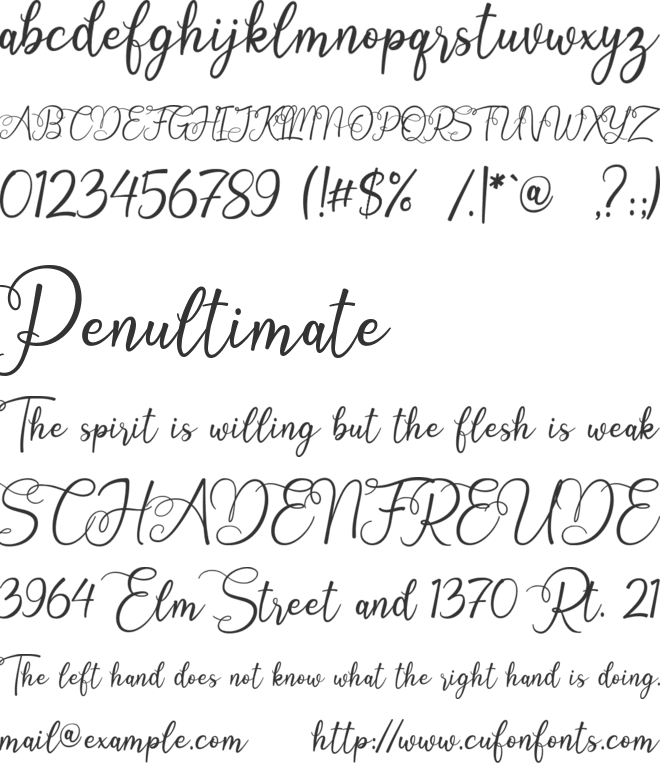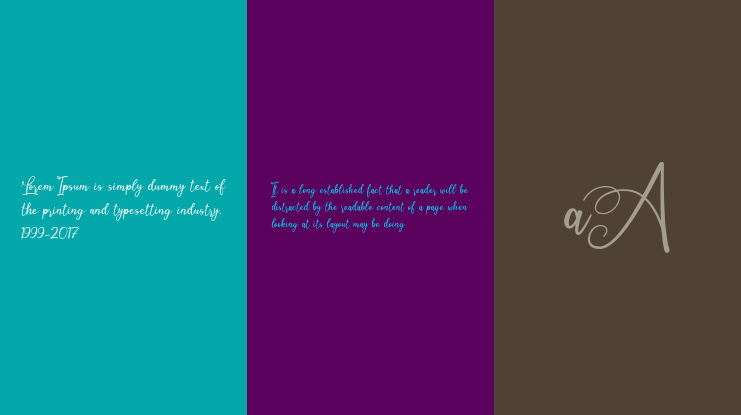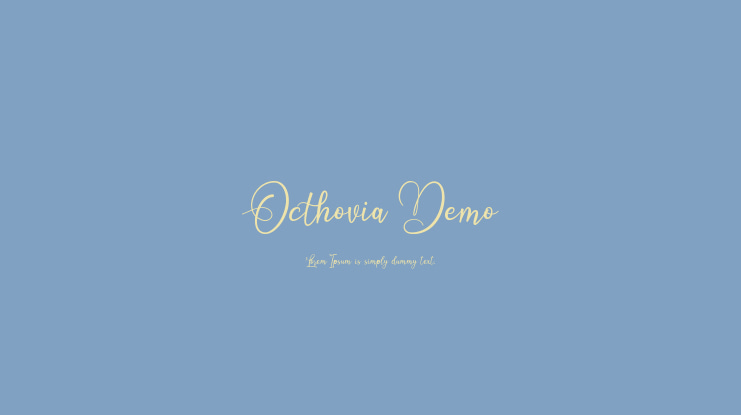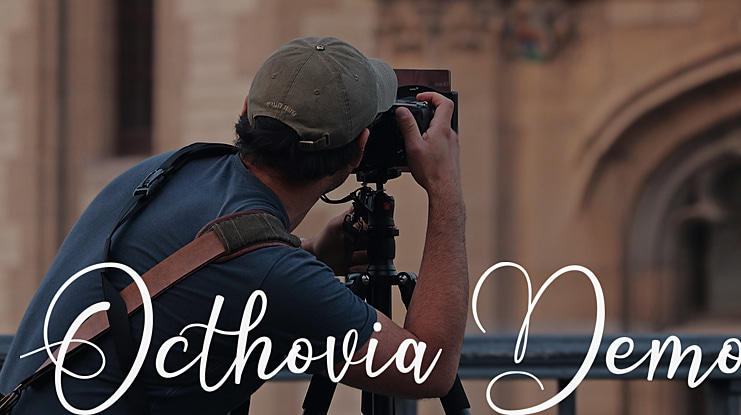
Octhovia Demo Font
Octhovia is built with opentype features with additional swash at the beginning and end, alternative letters, and ligatures so it makes it look natural as written by hand.